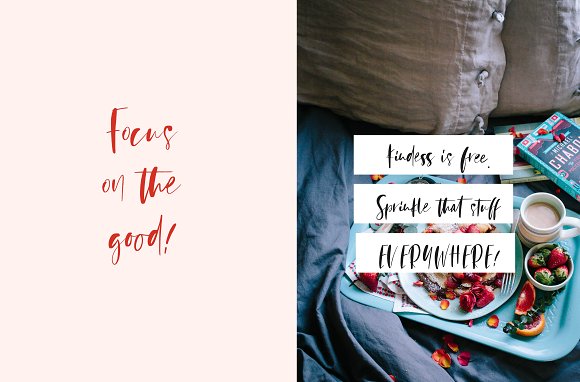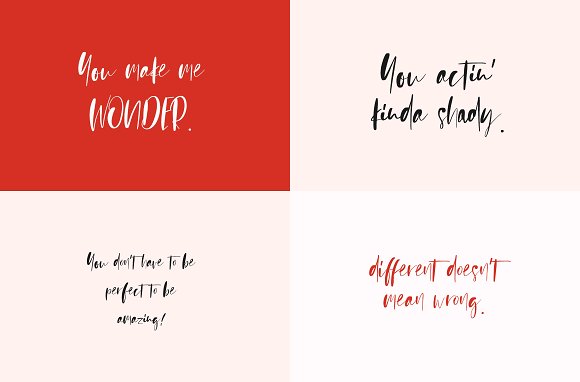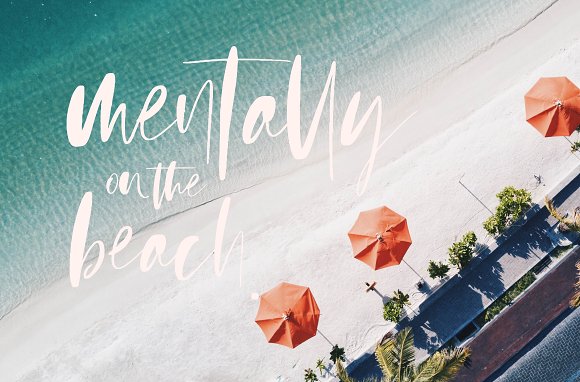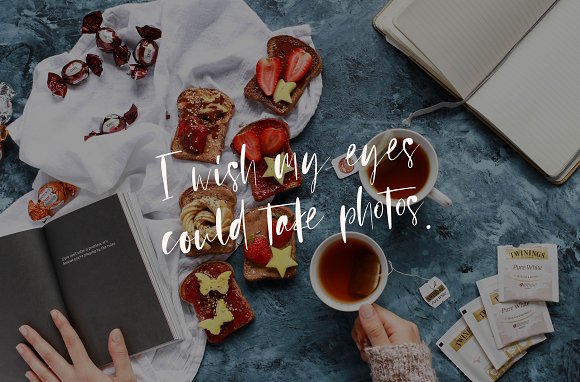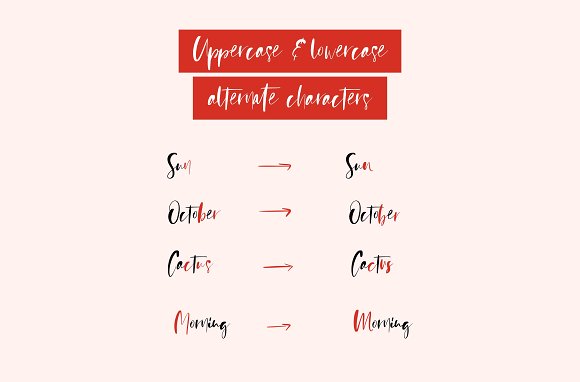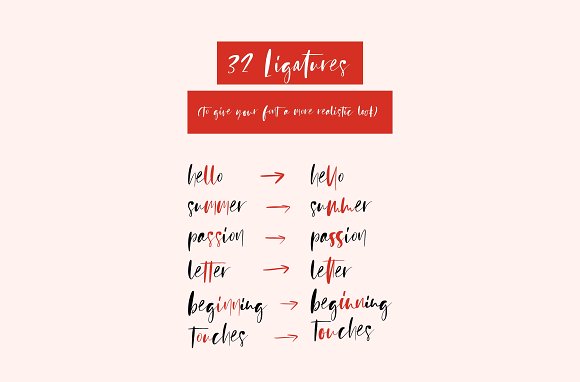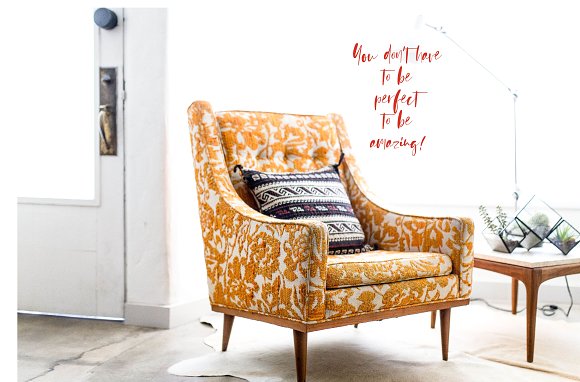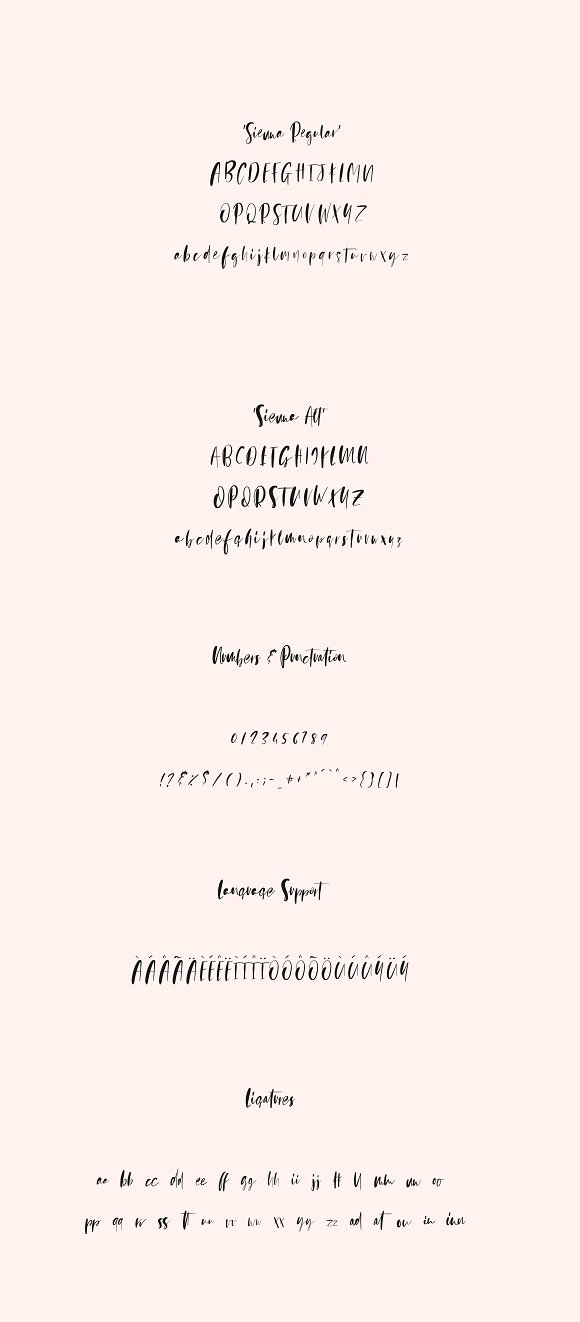
Sienna Signature Font + Extras
Sienna is a handwritten signature font that comes in two different versions. Its natural & feminine look makes it the perfect fit for handwritten logos, quotes, invitation cards, personalized social media headers, product packaging and a lot more!